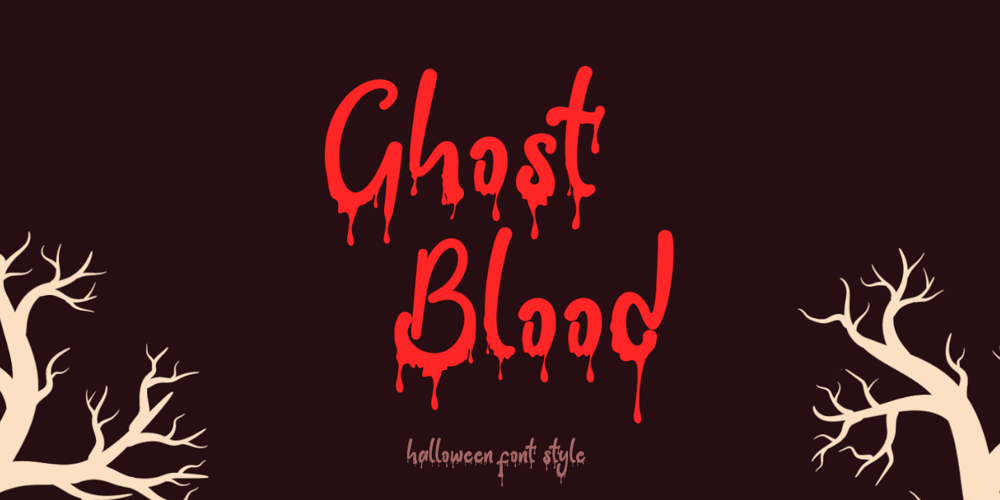
Ghost Blood
Ghost Blood font
Ghost Blood Font Family was designed by Selvia Cahya and published by Selvia Design. Ghost Blood contains 1 styles and family package options. “Ghost Blood” is a special Halloween horror font that is very unique and scary. This font looks like melting blood, which will add horror to your Halloween moment. Apart from Halloween, this font can also be used for party invitations, metal concert invitations, horror movie titles, and more. Equipped with uppercase, lowercase, numerals, punctuation, and multilingual support.